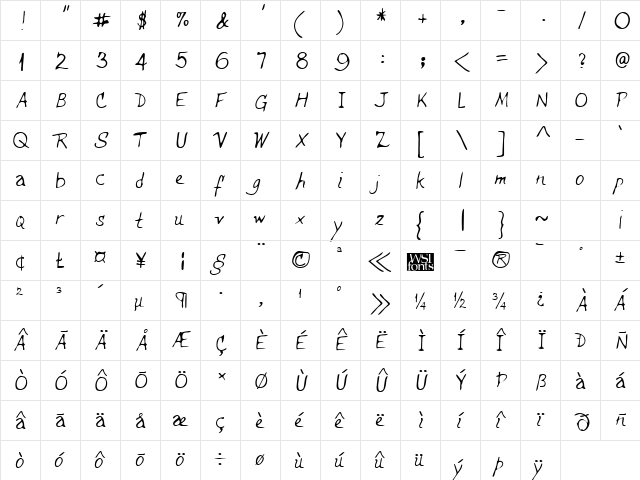
QuinnsHand Regular
Design Context for QuinnsHand Typeface
QuinnsHand flows with the natural rhythm of handwritten lettering, making it ideal for designs that call for warmth and personal expression.
Font Pairing: Combine QuinnsHand with a simple geometric sans for maximum contrast — the tension between flowing curves and clean structure is a classic typographic pairing.
Pro Tip: Pair QuinnsHand with a clean sans-serif for supporting text. The contrast between fluid script and geometric structure creates an elegant typographic hierarchy.